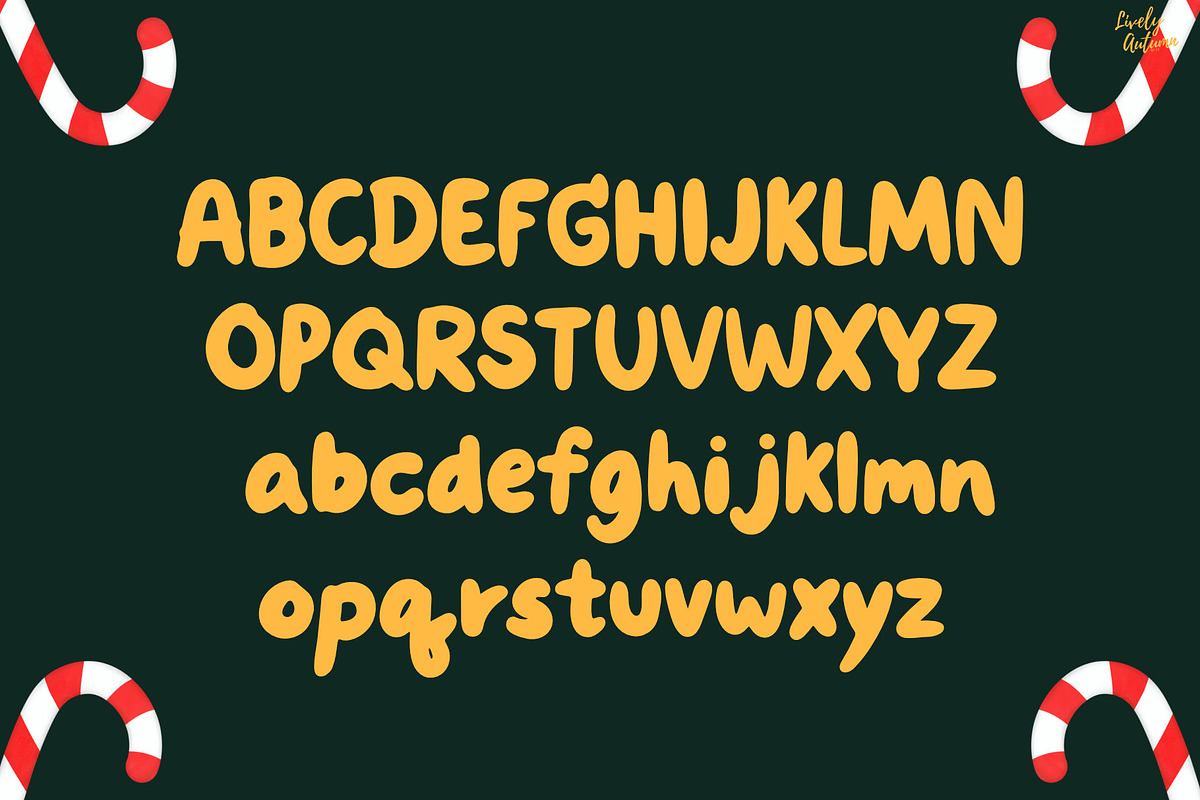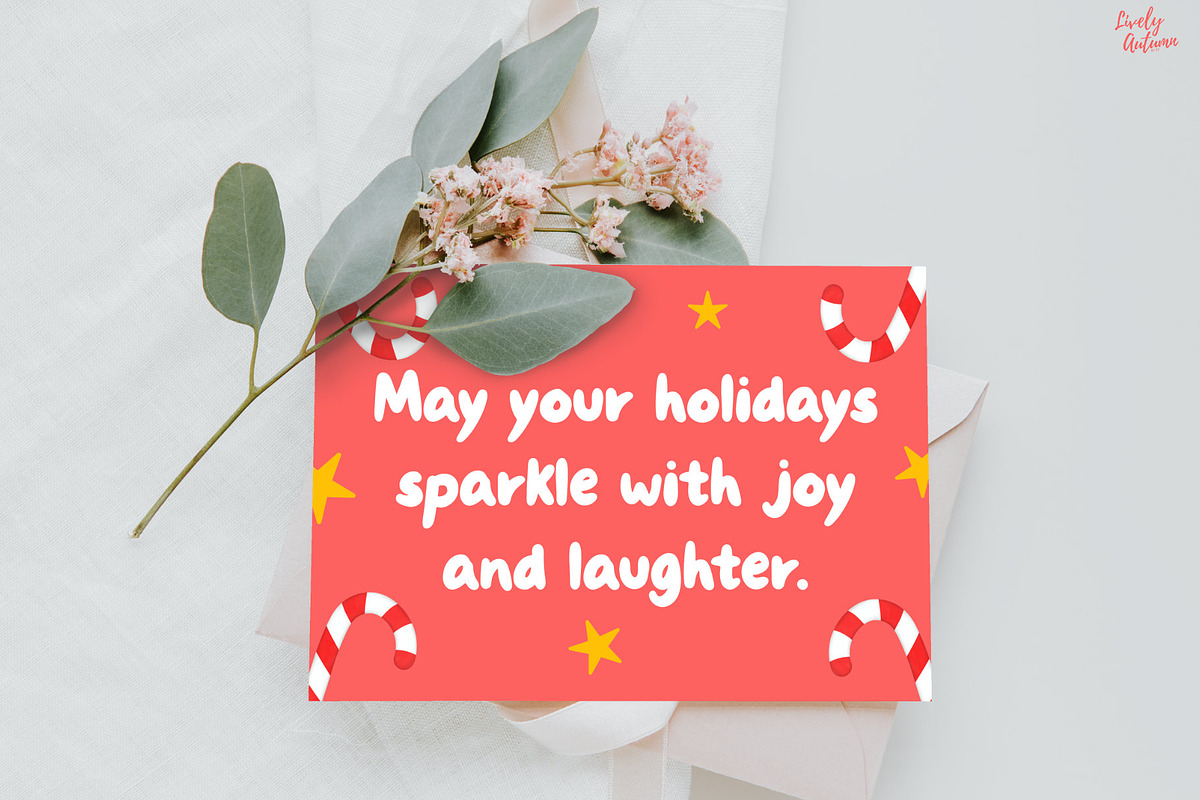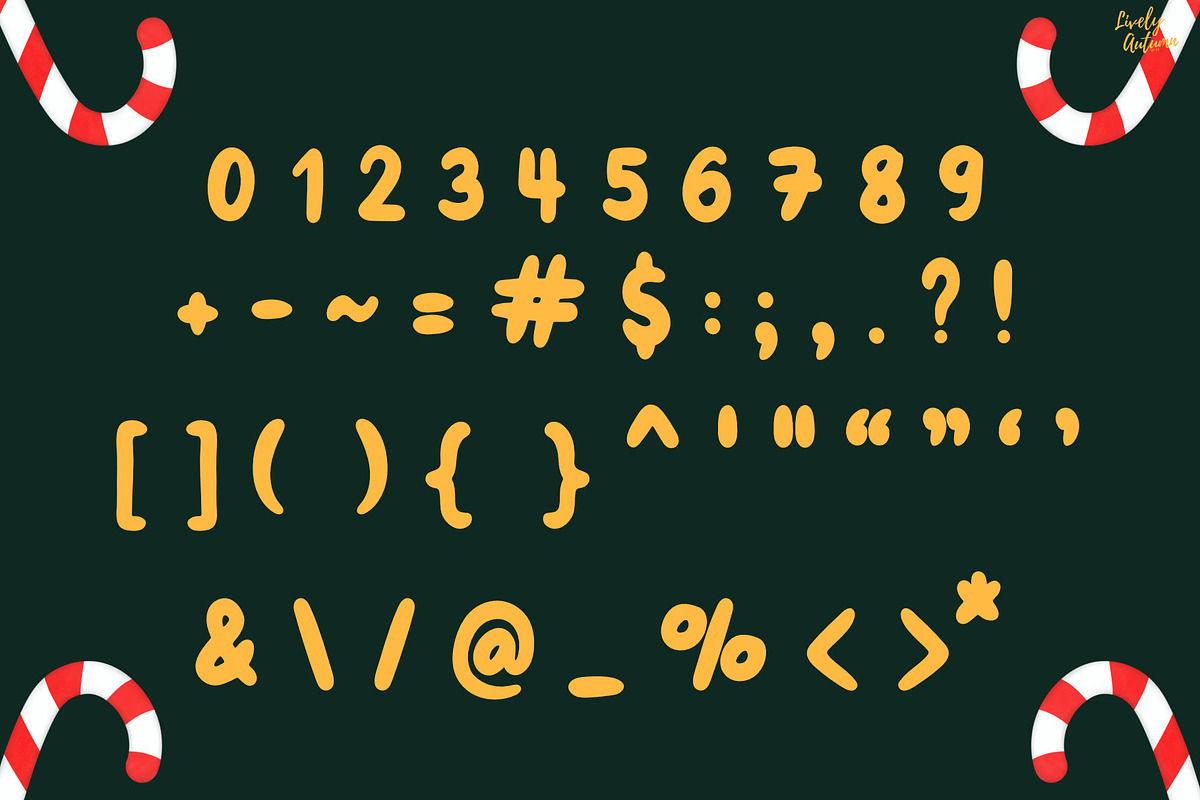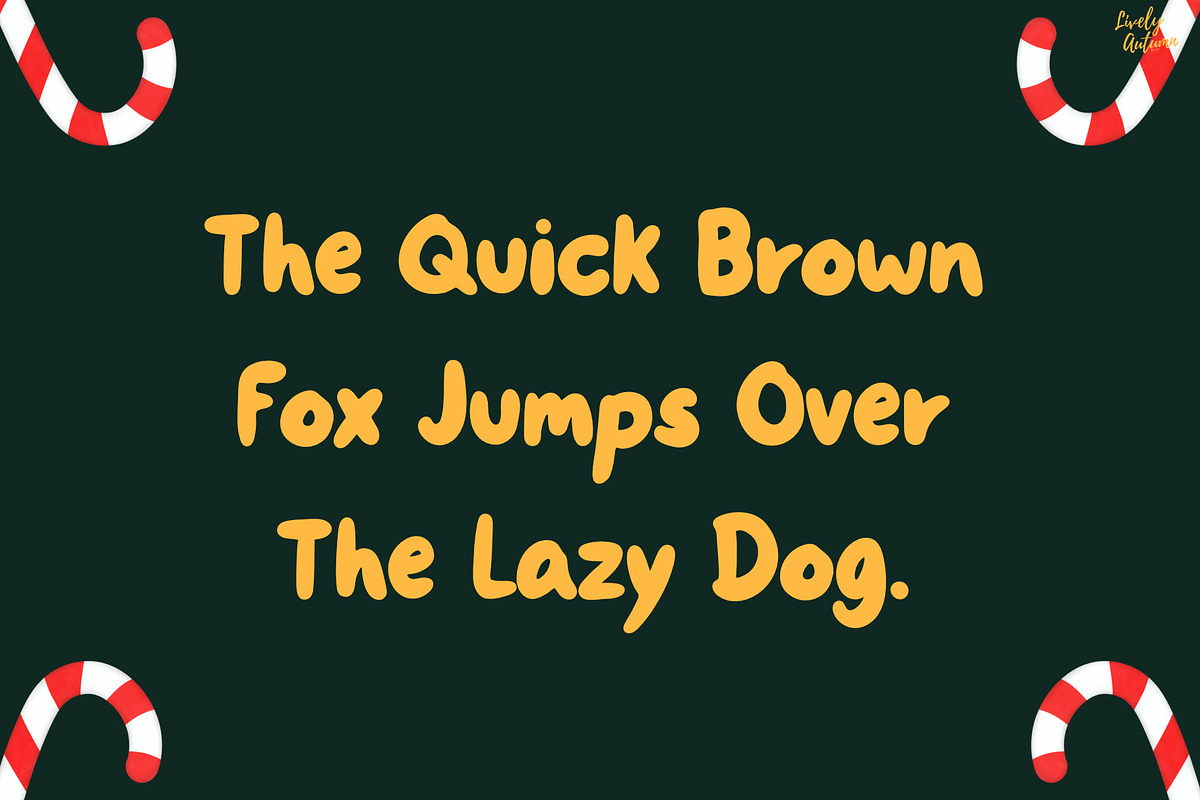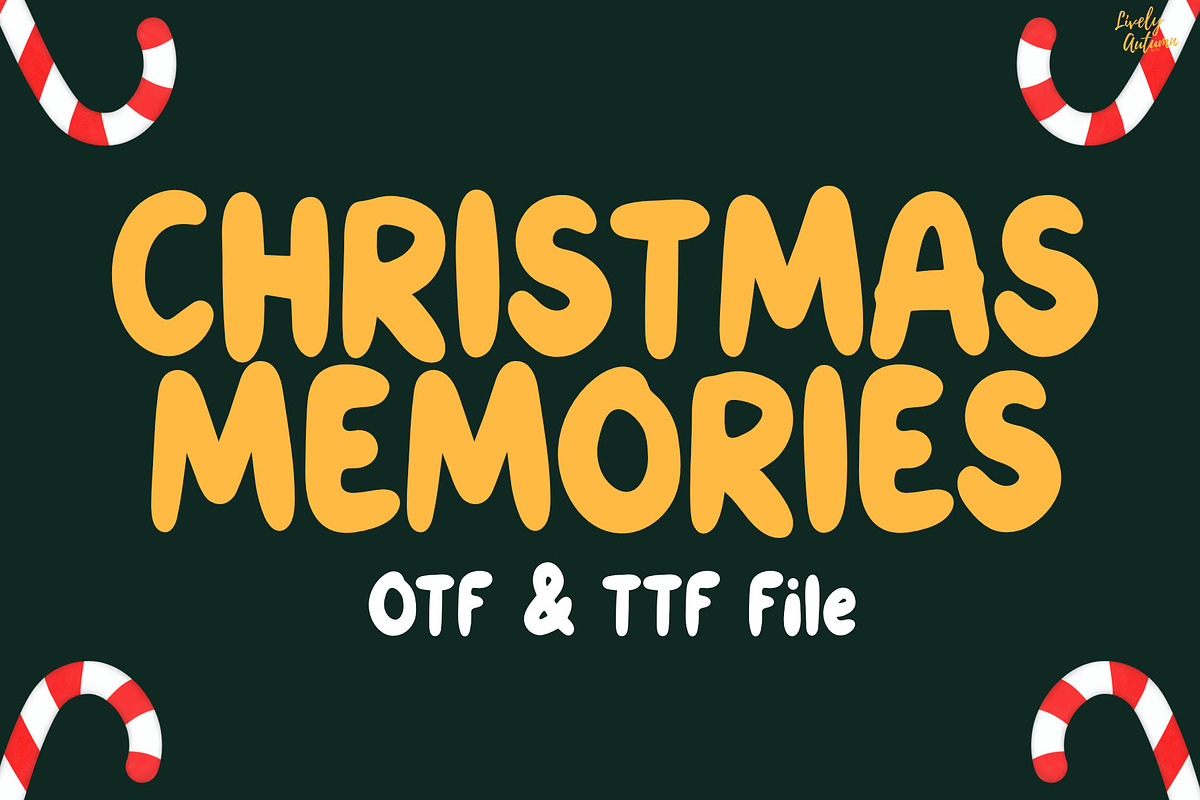
ChristmasMemories | Handwriting font
Christmas Memories is a handwriting font inspired by the cozy feeling of writing in a diary. Perfect for your personal projects and various projects. From invitations to posters, social media graphics, journals, greeting cards, and much more.
- Font includes: uppercase, lowercase, numbers, and punctuation.